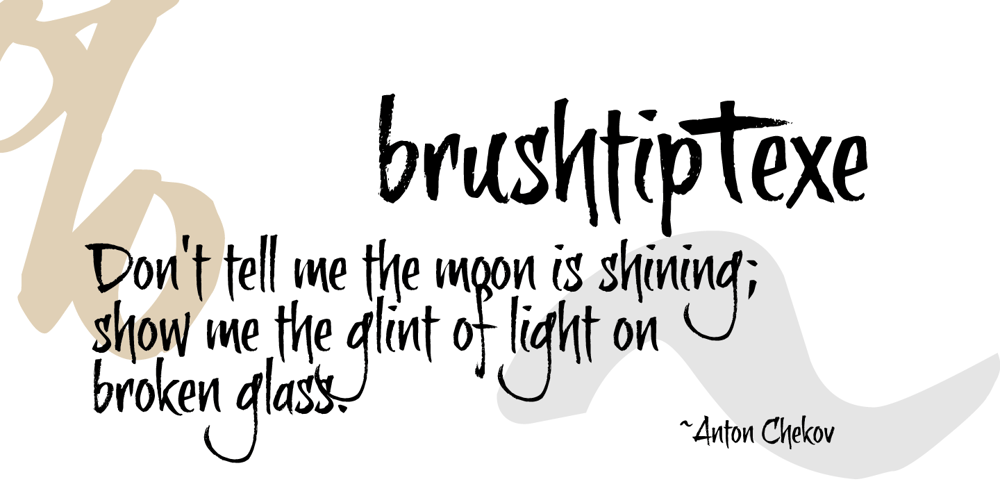
BrushtipTexe
BrushtipTexe font
BrushtipTexe Font Family was designed by published by JOEBOB graphics. BrushtipTexe contains 1 styles and family package options. Arrrrrr! A brand new handwritten brush font for all your pirate treasure maps, mateys. And very usable elsewhere of course.